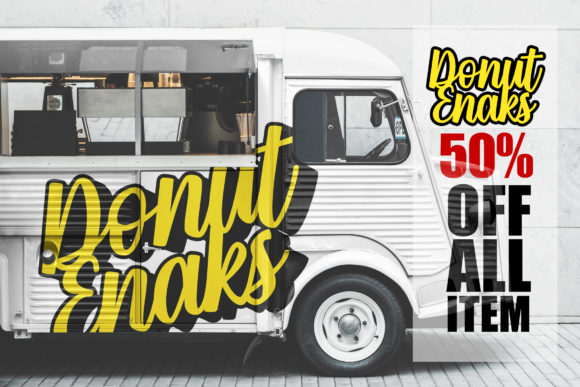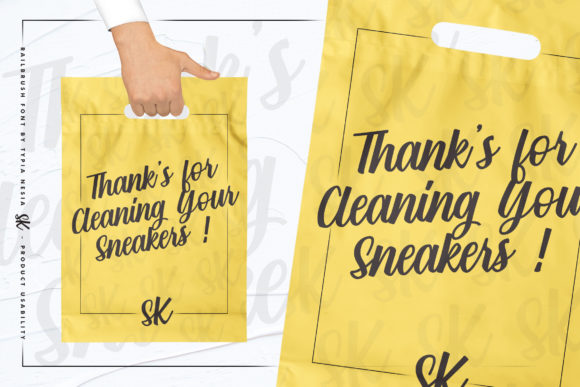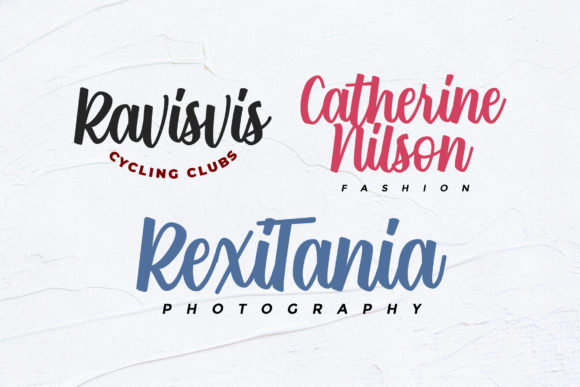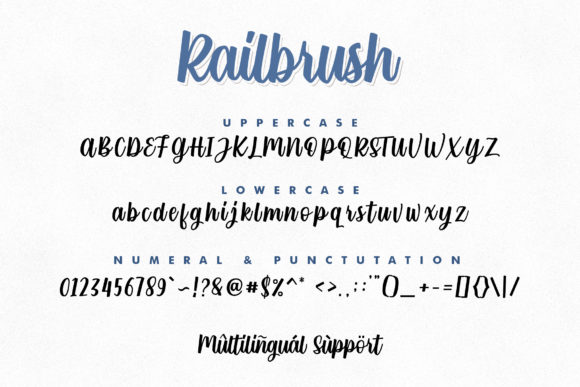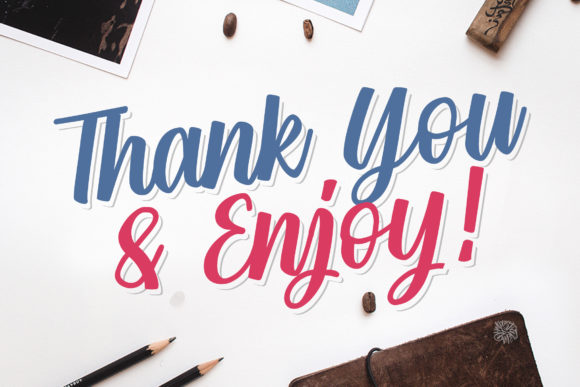
Rail Brush Font
About Rail Brush Font
Rail Brush is a bold and cool handwritten font with a vintage vibe. It’s the ideal font for adding any advertising or branding projects!